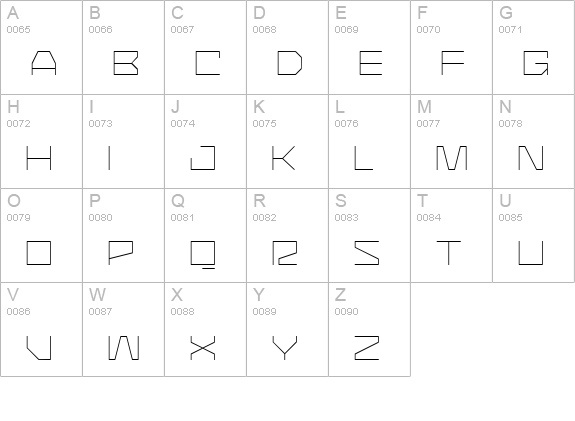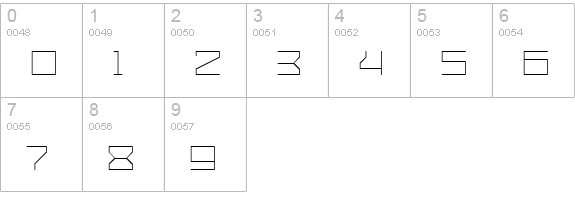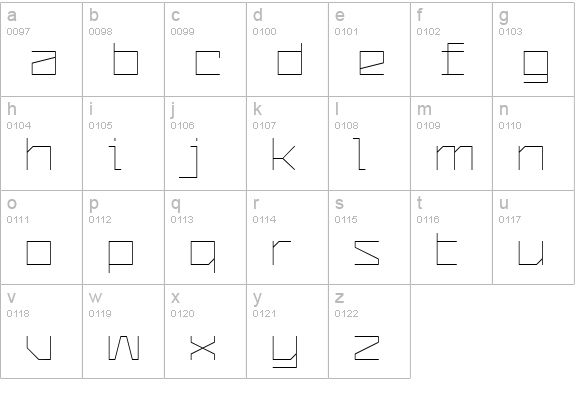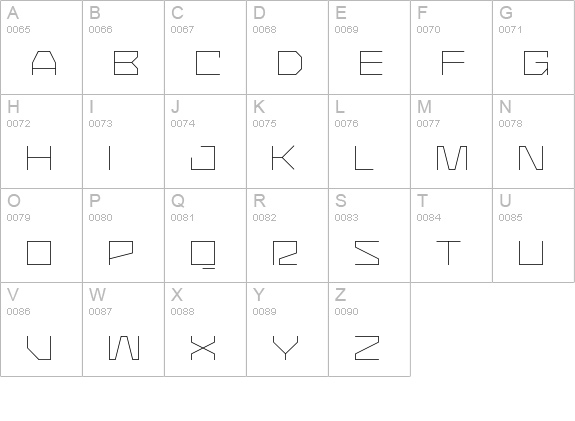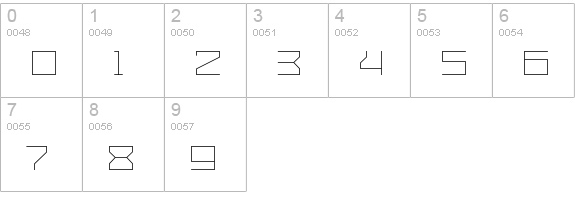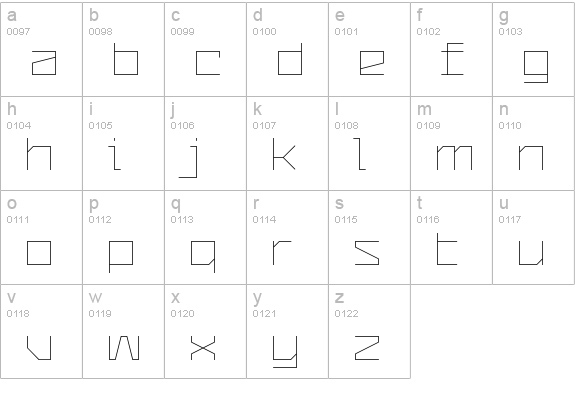
CommunityService Thin is a delicate, low-contrast variant in the CommunityService typeface family \xE2\x80\x94 well suited to fashion editorial, minimal branding, and high-contrast display.
CommunityService Thin font is a sleek and modern typeface perfect for creating clean and sophisticated designs. With its thin, elegant letterforms, this font exudes a sense of style and professionalism. Whether you're working on a project for a non-profit organization, a community event, or any other cause-related design, CommunityService Thin font will add a touch of class to your work. The best part? CommunityService Thin font is available for free download at FontsMarket.com. This means you can easily access this high-quality font without worrying about any costs. So go ahead and elevate your designs with the refined aesthetic of CommunityService Thin font, all while enjoying the convenience of a free download.